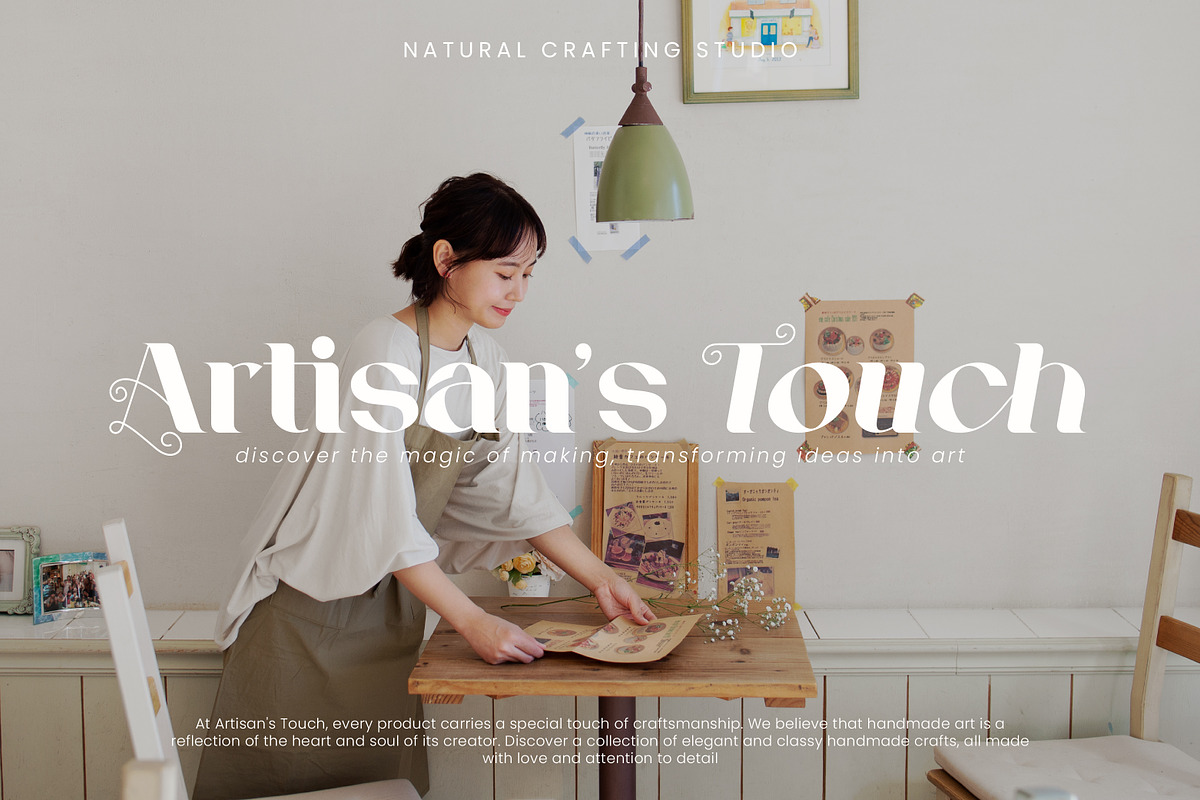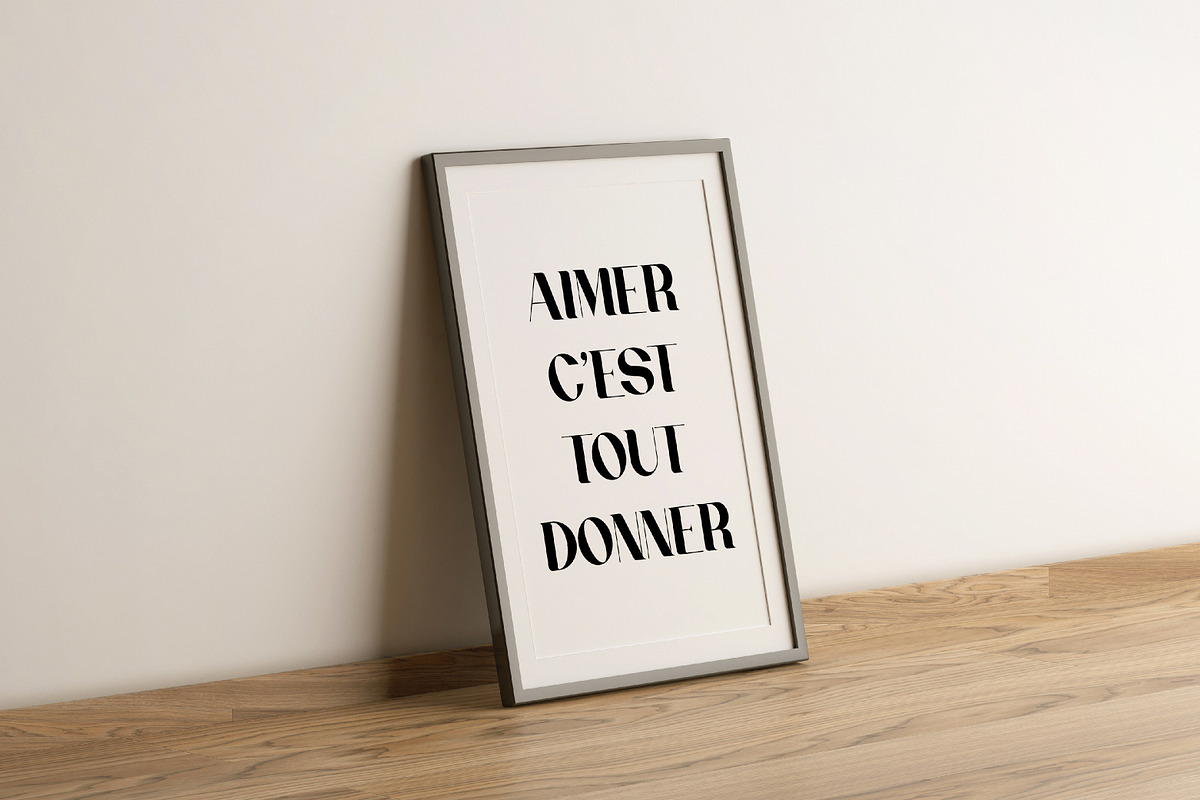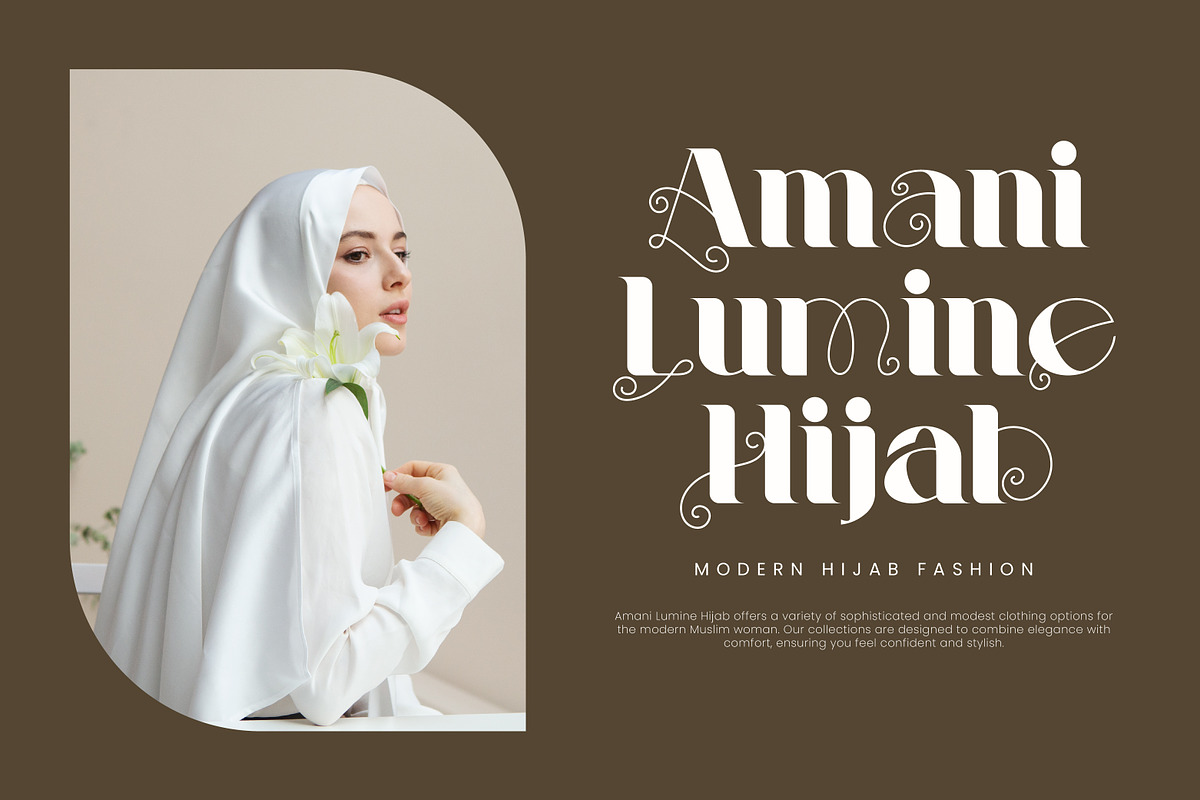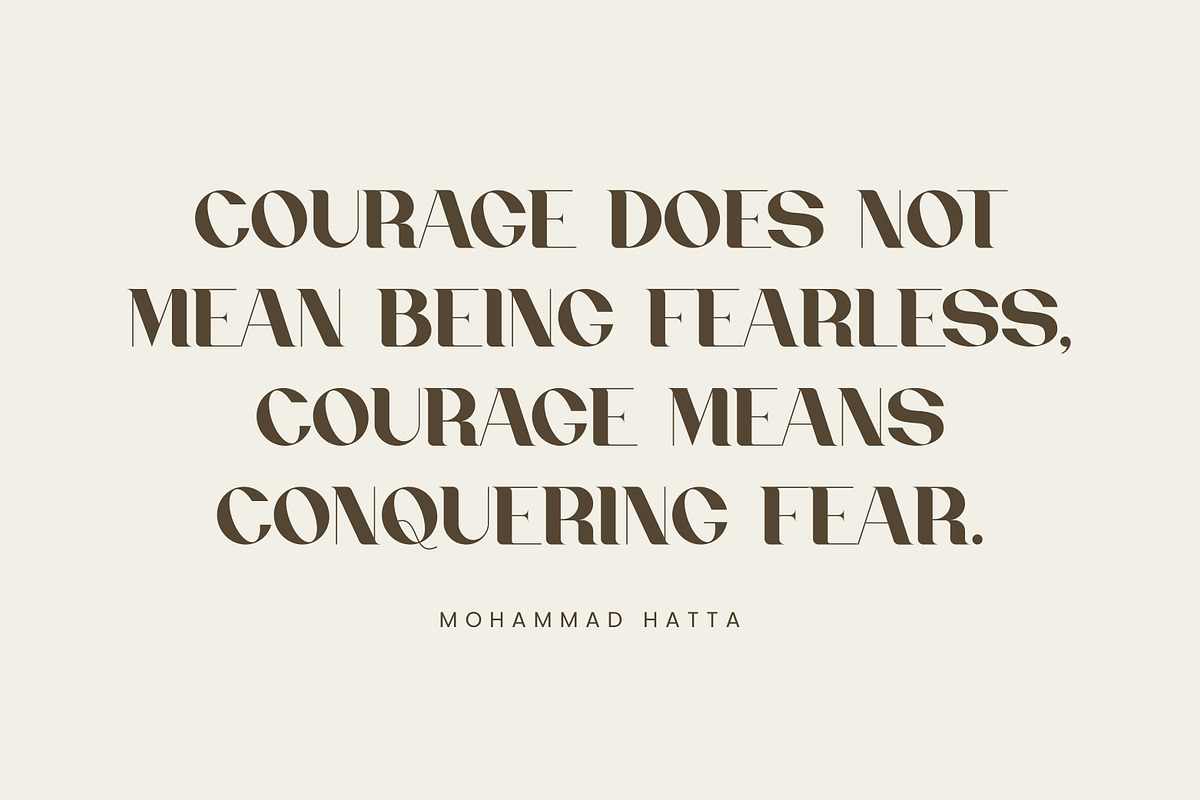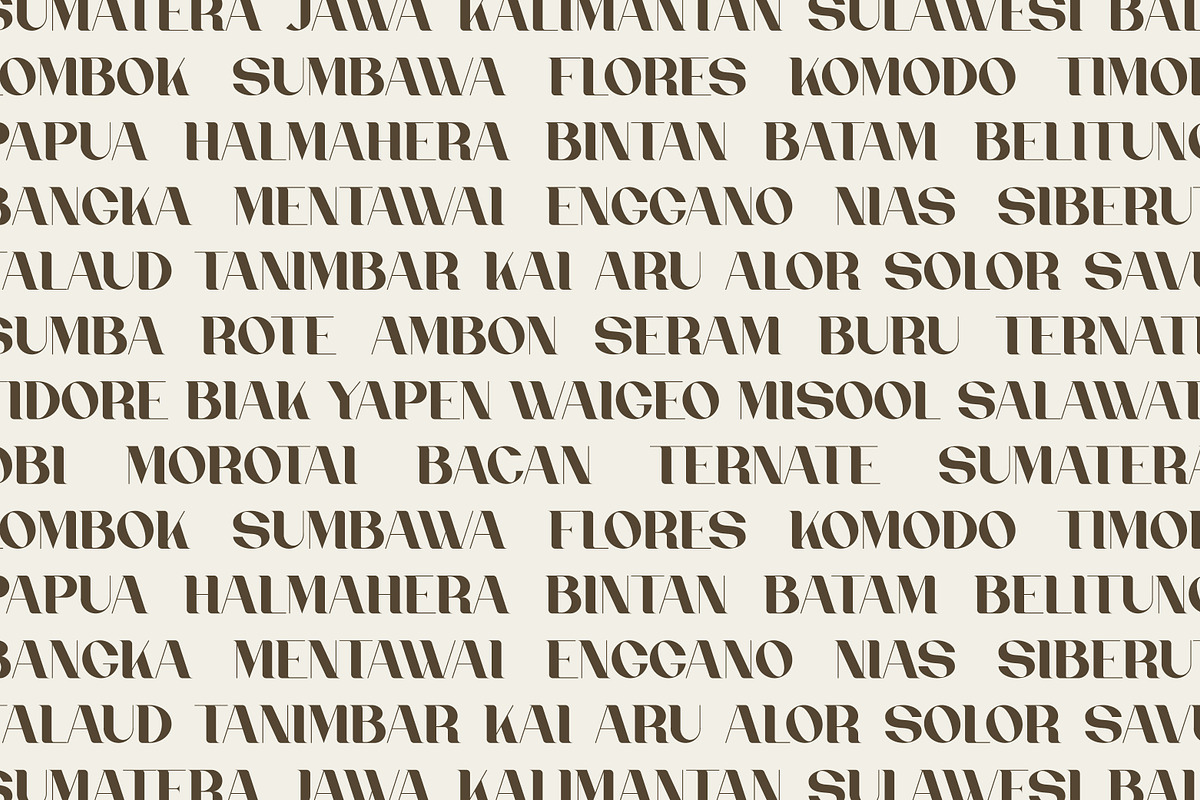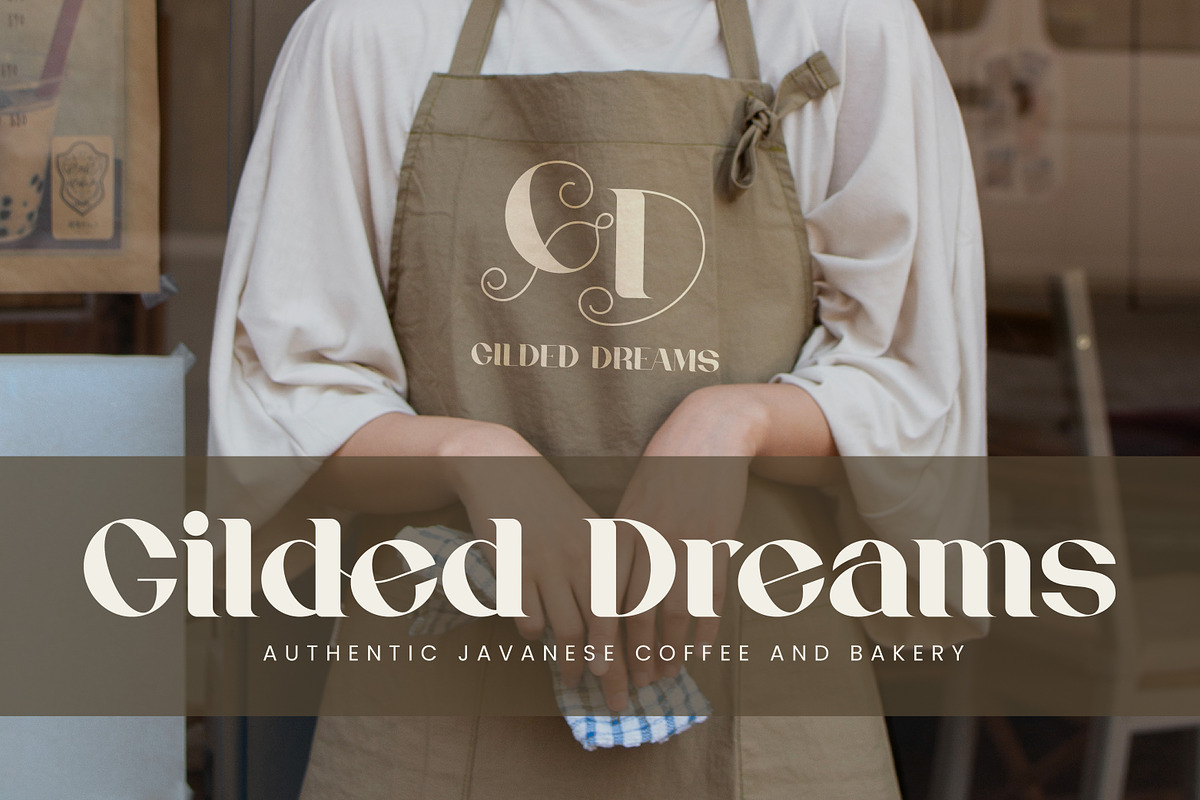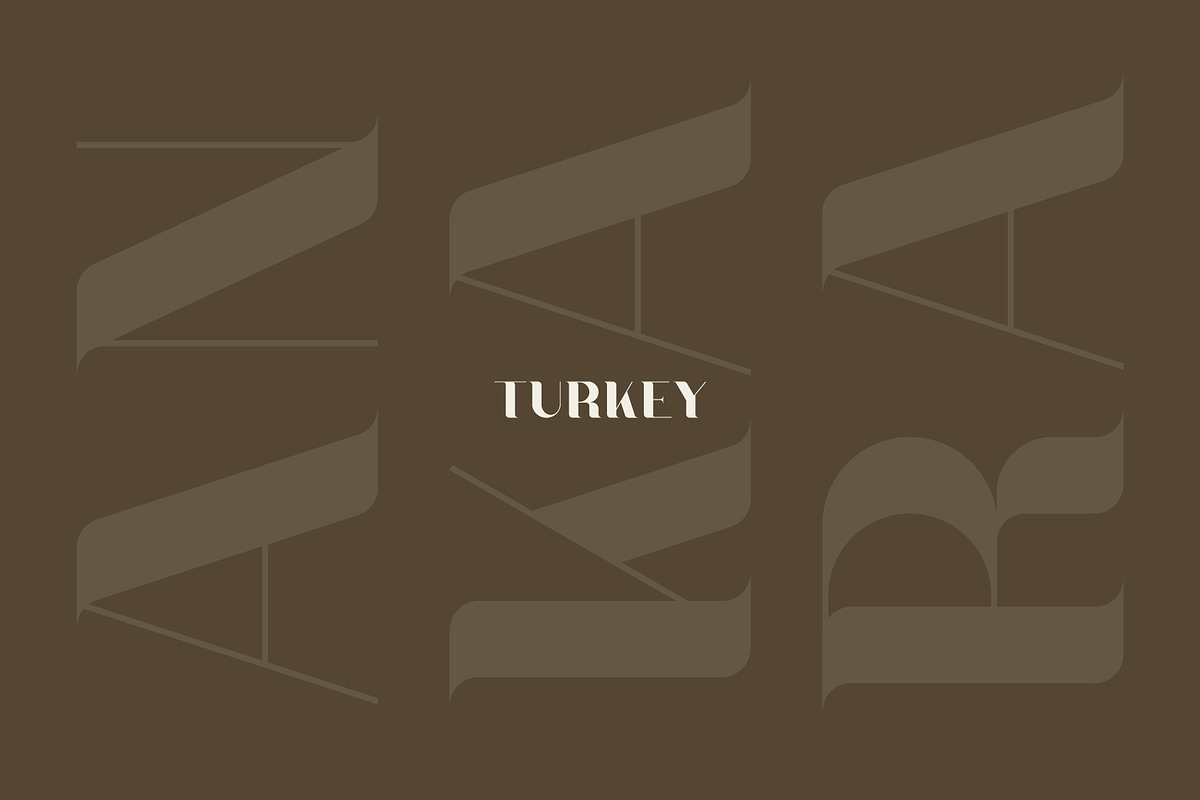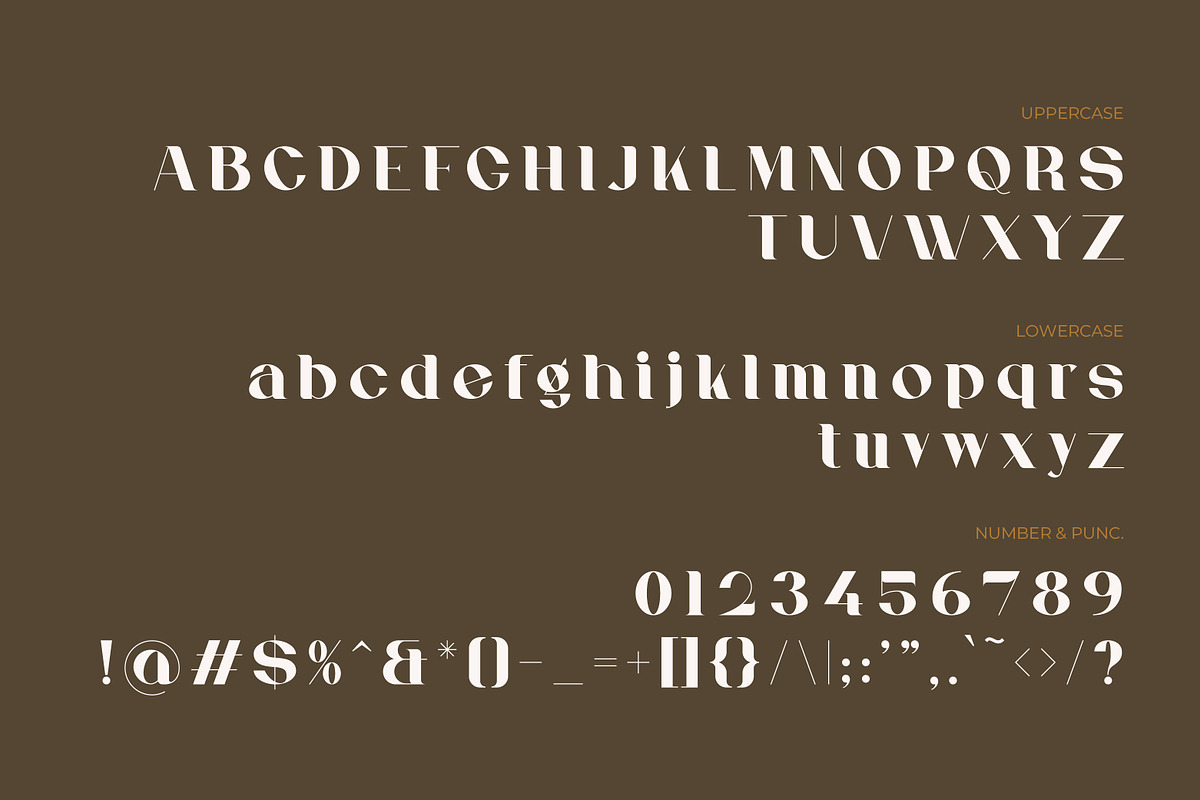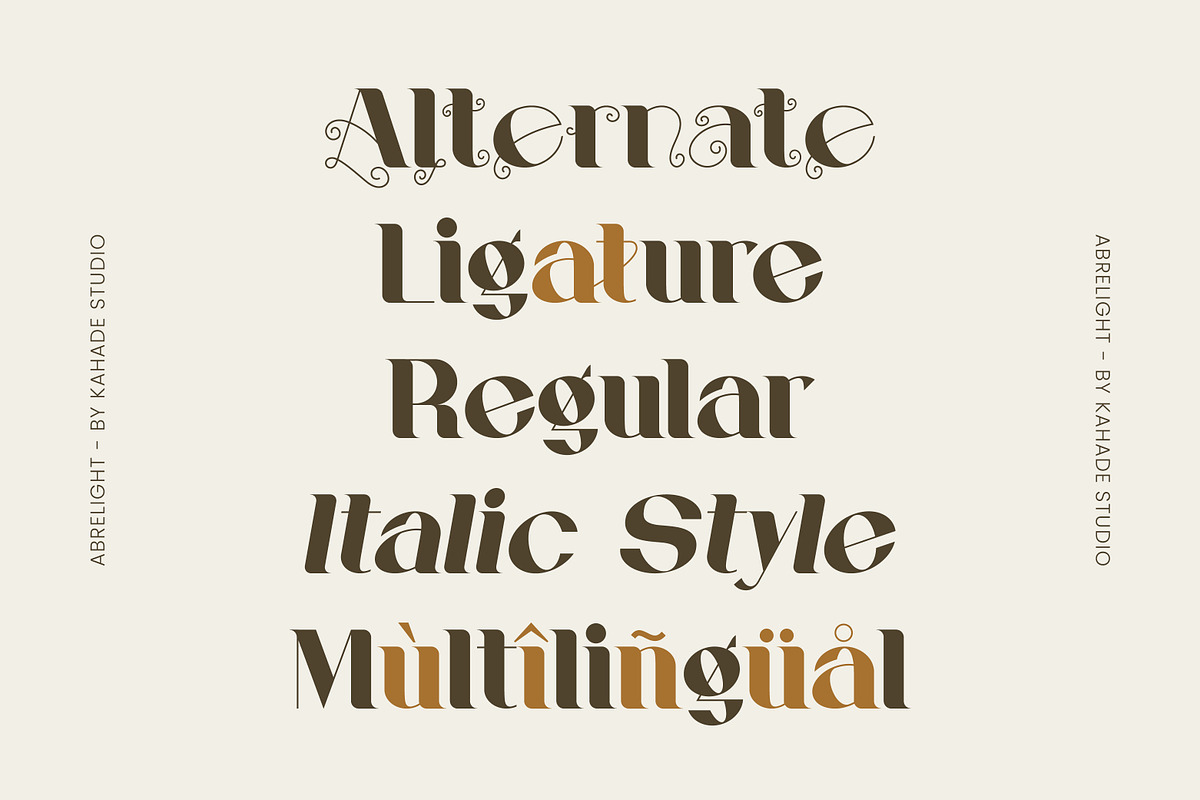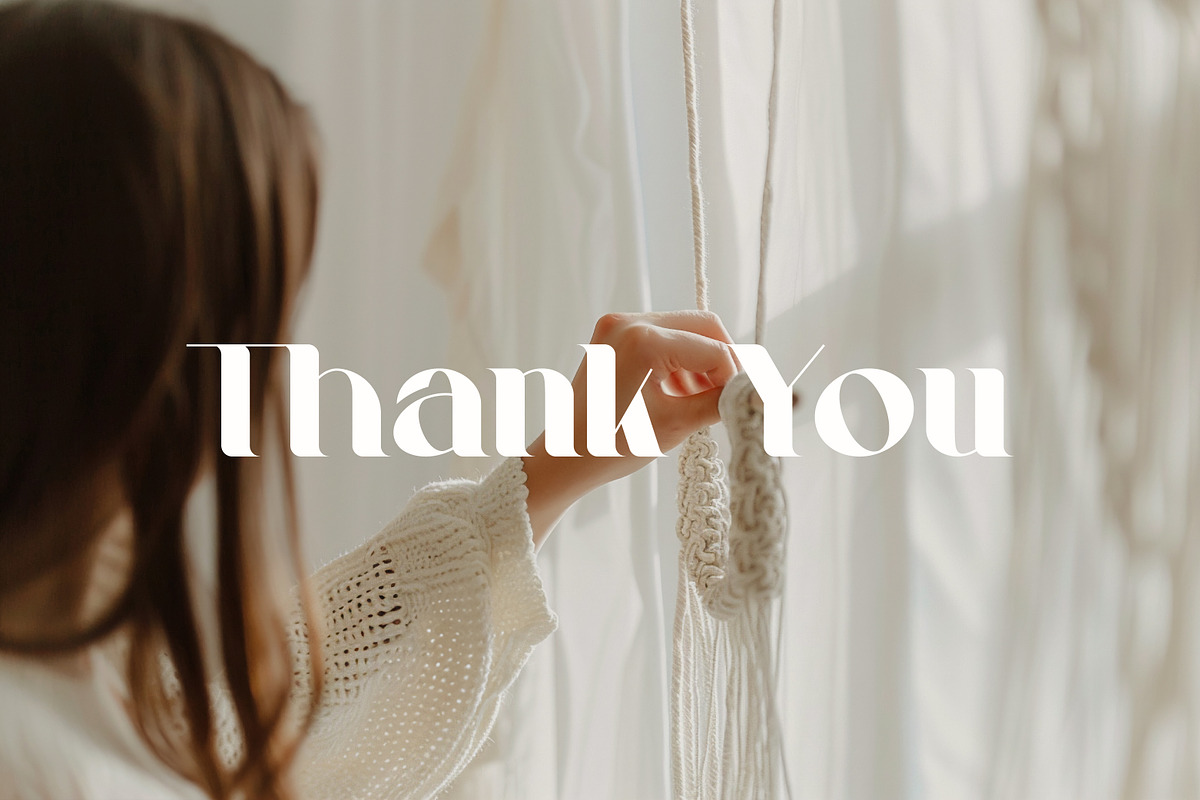
Abrelight | Modern Classic Serif
Abrelight – Modern Classic Serif Font. This font has a modern, classic, stylish, and elegant character. Suitable for your various special project needs.
- Uppercase Character
- Lowercase Character
- Number & Punctuation
- Stylistic Alternate & Ligature